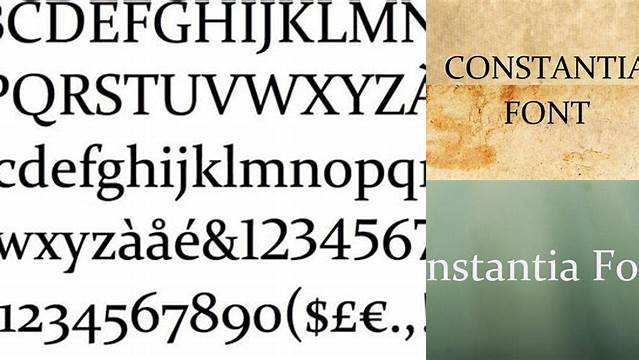
Are you looking for a versatile and elegant font to enhance your design projects? Look no further! The Constantia font family is a fantastic choice, offering a blend of readability and sophistication. In this comprehensive guide, we'll dive deep into the world of Constantia, exploring its history, characteristics, and, most importantly, where you can find a Constantia font family free download. Plus, we'll give you a ton of tips on how to use it effectively in your projects, whether it's for web design, print media, or anything in between. So, let's get started, guys!
What is Constantia Font?
Before we jump into the details of how to snag that Constantia font family free download, let's first understand what makes this font so special. Constantia is a serif typeface designed by John Hudson and released by Microsoft in 2007. It's part of the ClearType Font Collection, a set of fonts specifically crafted to look crisp and clear on computer screens. This means Constantia excels in digital environments, making it a go-to choice for websites, documents, and presentations. Think of it as the elegant workhorse of the font world—it's both beautiful and practical.
The Constantia font family belongs to the transitional serif typeface category, which means it bridges the gap between the older, more traditional serif fonts and the modern, cleaner ones. This gives it a unique appeal, as it feels both familiar and contemporary. The serifs are bracketed and have a gentle curve, which adds to the font's overall warmth and readability. It's not as stark as some modern serifs, nor as ornate as the old-style ones. It strikes a perfect balance, making it a great choice for body text as well as headlines.
One of the key features of Constantia is its excellent legibility. This is crucial for any font, but especially for one intended for screen use. The letters are well-formed and have a generous x-height (the height of the lowercase letters), which makes them easy to read even at smaller sizes. The spacing between the letters is also carefully considered, ensuring that the text doesn't look cramped or cluttered. Whether you're designing a website, a brochure, or a simple document, Constantia will ensure that your text is clear and inviting. The font's design incorporates a humanist touch, giving it a friendly and approachable feel. This makes it a versatile option for various applications, from formal reports to creative marketing materials. The slight variations in stroke weight and the subtle curves in the serifs add personality without sacrificing readability.
In addition to its aesthetic qualities, Constantia is also technically sound. It's available in a variety of weights, from regular to bold, allowing you to create visual hierarchy in your designs. It also includes italic and bold italic styles, giving you even more flexibility. The character set is comprehensive, including a wide range of symbols and glyphs, which means you can use it for international projects as well. So, whether you need to write in multiple languages or include special characters, Constantia has you covered. Its availability as a system font on Windows also means that it's widely accessible, making it a safe choice for ensuring consistent typography across different devices and platforms. Now that you know why Constantia is such a great font, let's talk about how you can get your hands on a Constantia font family free download.